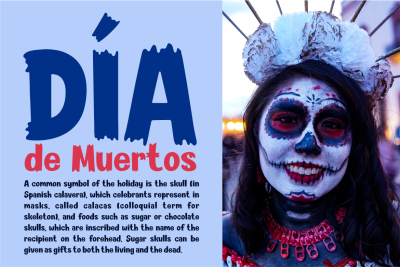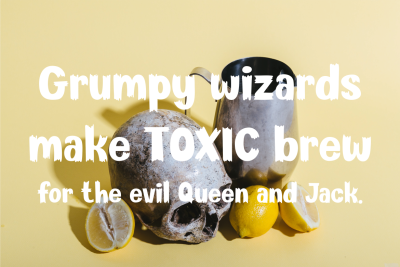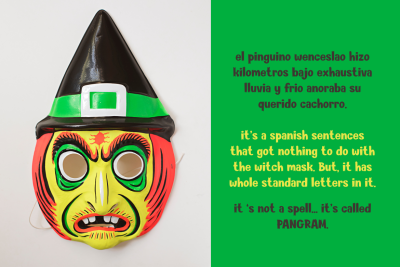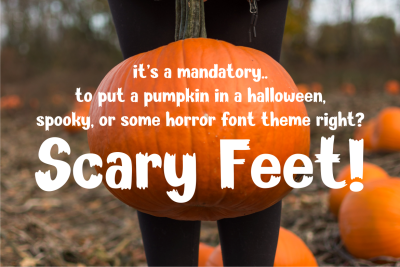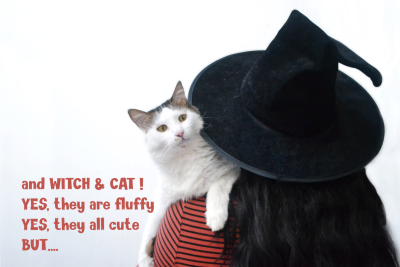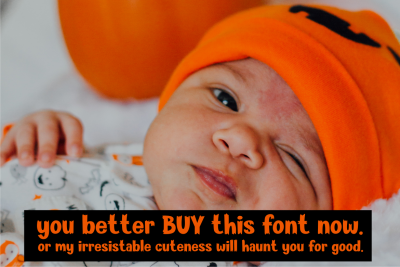
Scary Font scary feet combines a humorous and ghostly vibe, making it a unique choice for both fun and eerie designs. With bold, jagged letterforms and a quirky edge, this font stands out in the world of typography. Whether you’re creating Halloween party invitations or designing spooky-themed merchandise, Scary Feet ensures your project gets noticed.
The font’s design captures a balance between creepy and comical, making it ideal for audiences of all ages. Its cartoonish appeal adds a lighthearted twist to horror themes, making it especially suitable for kid-friendly projects or humorous takes on the spooky season.
Key Features of Scary Font Scary Feet
Scary Font scary feet is characterized by its jagged, irregular edges that evoke a ghostly and playful mood. Each letter carries a hand-drawn aesthetic, enhancing its organic and approachable feel. This unique style lends itself well to designs requiring a less-serious take on horror themes.
Furthermore, the font’s bold weight ensures it remains legible and impactful, even from a distance. Whether used on posters, banners, or digital graphics, Scary Feet commands attention effortlessly. Transitioning seamlessly between print and digital formats, it adapts to various mediums without losing its charm.
Its humorous edge makes it perfect for themed parties, Halloween decor, or children’s events. Additionally, the font pairs well with vibrant colors, amplifying its playful yet spooky vibe. With its versatility, Scary Feet becomes a must-have in any designer’s toolkit for Halloween-themed projects.
How to Use in Your Designs
Scary Font scary feet excels in Halloween-themed projects, adding a ghostly yet fun touch to your creative work. From event flyers and party invitations to digital banners and social media posts, this font brings your spooky ideas to life.
It also works wonderfully for product packaging, especially for treats, candies, or any festive merchandise. Designers can use it to create an eye-catching logo for seasonal campaigns or even playful educational materials for children. When combined with contrasting colors or textured backgrounds, Scary Feet becomes even more engaging and dynamic.
In conclusion, Scary Font scary feet is an excellent choice for those looking to combine humor and spookiness in their designs. Its distinctive look ensures every project stands out, leaving a lasting impression on the audience.